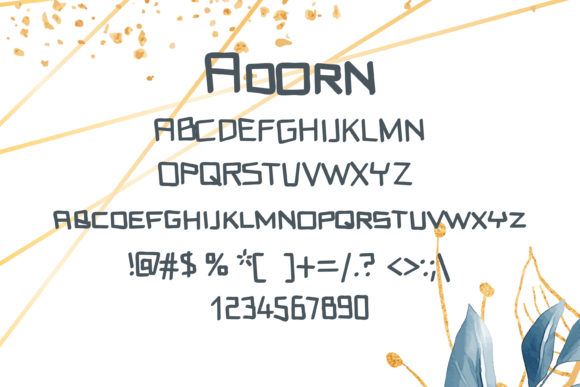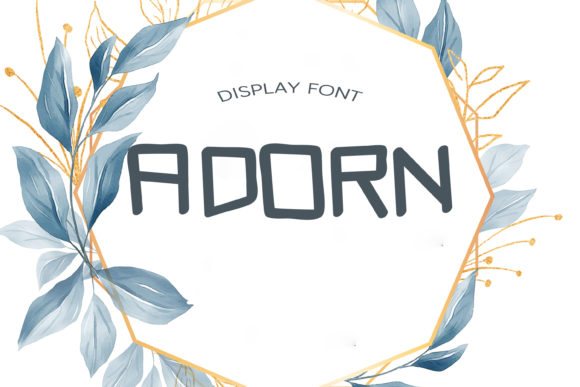
Introducing Adorn Font: A Quirky Display Font with a Dancing Baseline
Are you tired of using the same old fonts for your branding projects, posters, and web or app development? Look no further than Adorn Font, a quirky display font that is sure to add a touch of personality to your designs. With its dancing baseline and unique all-caps characters, Adorn Font is the perfect choice for designers and crafters looking to add a bit of whimsy to their work.
What Makes Adorn Font So Unique?
Adorn Font is a display font like no other. Its imperfect lines and casual feel give it a one-of-a-kind look that is sure to stand out. The dancing baseline, which refers to the wavy or irregular line that the letters sit on, adds a playful touch to the font. This feature makes Adorn Font perfect for projects that require a bit of personality and flair.
Another unique feature of Adorn Font is its all-caps characters. Each letter has been carefully crafted to be visually appealing and easy to read, while also maintaining a quirky and playful feel. The all-caps design makes Adorn Font perfect for headlines, titles, and other display text.
Perfect for Branding Projects and Posters
Adorn Font is a great choice for branding projects, such as logos, business cards, and letterheads. Its unique and quirky design makes it perfect for companies that want to stand out from the crowd and establish a strong brand identity. The font’s casual feel also makes it suitable for use in posters, flyers, and other marketing materials.
Whether you’re designing a poster for a concert, a sale, or a special event, Adorn Font is sure to grab attention. Its bold and playful design makes it perfect for headlines and titles, and its unique characters will add a touch of personality to your design.
Great for Web and App Development
Adorn Font is not just limited to print design. It’s also a great choice for web and app development. The font’s clean and legible design makes it perfect for use in digital displays, such as website headers, mobile app titles, and more.
With Adorn Font, you can add a touch of personality to your website or app, making it more engaging and memorable for users. The font’s quirky design also makes it perfect for use in social media graphics, blog posts, and other online content.
Why Choose Adorn Font?
So why choose Adorn Font over other display fonts? Here are just a few reasons:
- Unique design: Adorn Font has a one-of-a-kind design that is sure to stand out.
- Quirky and playful: The font’s casual feel and dancing baseline make it perfect for projects that require a bit of personality.
- All-caps characters: The font’s all-caps design makes it perfect for headlines, titles, and other display text.
- Legible and clean: Despite its quirky design, Adorn Font is clean and legible, making it perfect for use in a variety of projects.
Adorn Font is a quirky display font that is sure to add a touch of personality to your designs. With its dancing baseline and unique all-caps characters, it’s perfect for branding projects, striking posters, and as a unique display font for web or app development. Whether you’re a designer or crafter, Adorn Font is a great choice for anyone looking to add a bit of whimsy to their work.